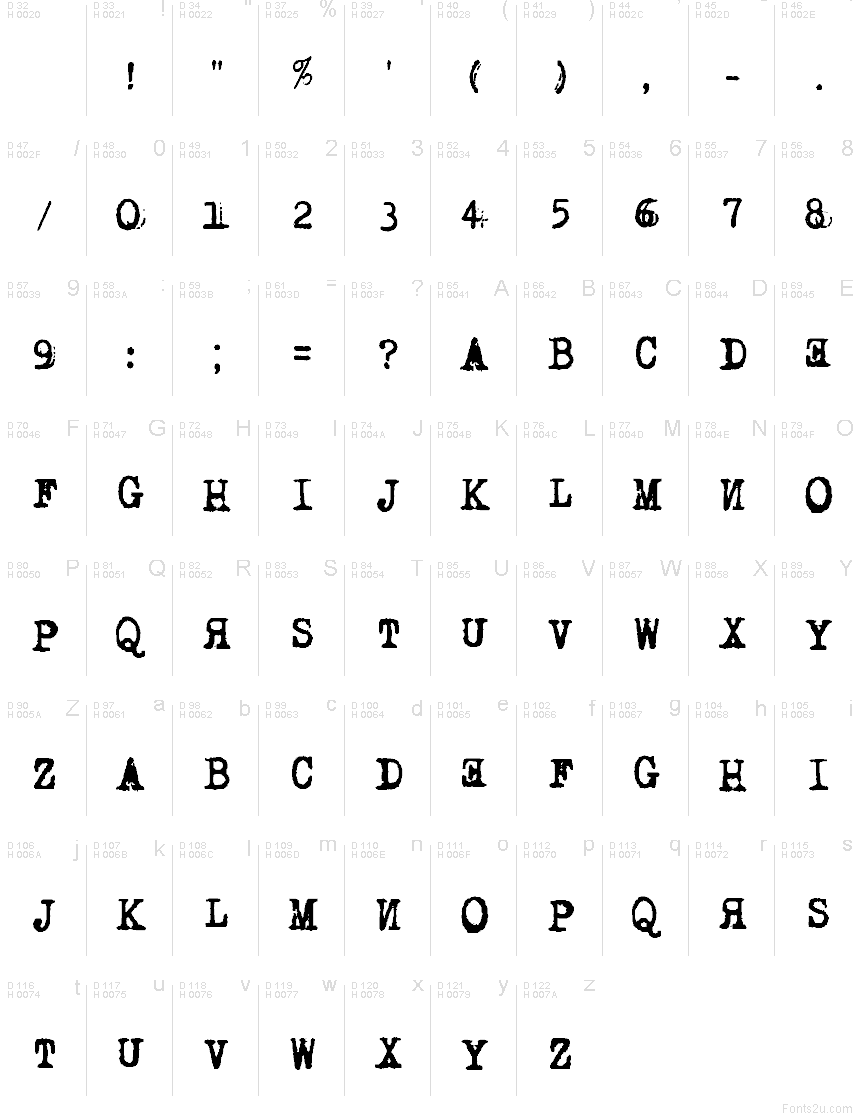
Weird Typewrite Regular
Weird Typewrite font by Aleks Martinez of Weird Typewrite is a free eroded typewriter display typeface that looks like it’s been hammered out on a haunted, jam-prone machine. Each letter is blotchy, jittery, and worn at the edges, with inky blobs and broken outlines that feel raw and unsettling rather than neat or nostalgic. The irregular spacing and wobbling verticals give your words a nervous energy, as if the message was rushed out in a panic.
Using Weird Typewrite, you can push titles and short phrases to the foreground on horror posters, thriller book covers, zines, escape room graphics, album art, and eerie YouTube thumbnails. This free font shines when it’s big and loud, letting the grime and noise do the storytelling. For legibility, pair it with a clean, simple sans serif for body copy and keep Weird Typewrite as the distressed voice for headlines and key accents.